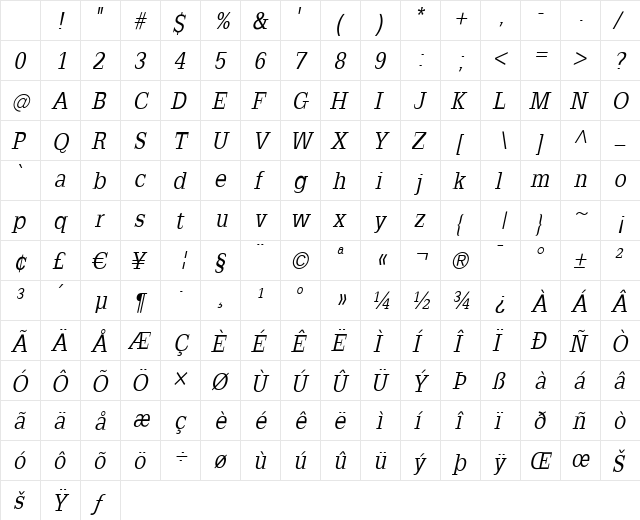
Complete SlabRomana Medium Italic glyph index. Displaying only characters natively supported by SlabRomana Medium Italic font.
SlabRomana features prominent, blocky serifs that give it a confident, grounded presence - equally at home in editorial settings and bold branding work. The slanted form adds forward momentum and visual energy.
Pro Tip: Use SlabRomana for headlines and subheadings where its slab serifs can make an impression. It also holds up well in mid-size body copy thanks to its sturdy construction.